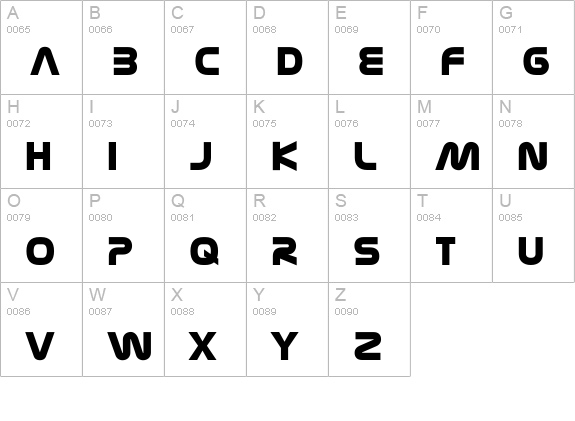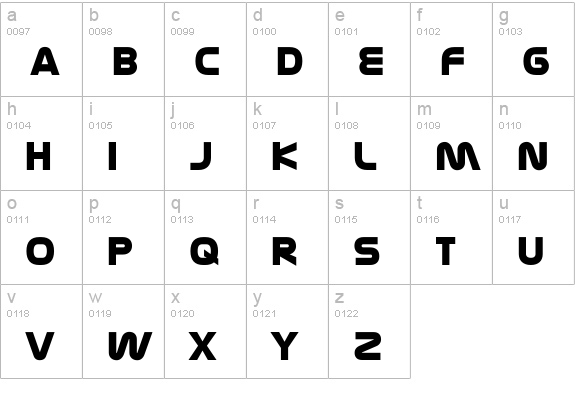
Nasalization Heavy is a heavy, high-impact variant in the Nasalization typeface family \xE2\x80\x94 well suited to high-impact headlines, posters, and display advertising.
Nasalization Heavy is a striking and bold display font that commands attention with its unique futuristic design. This typeface features strong, geometric shapes and sharp lines that give it a modern and edgy look. Perfect for headlines, logos, and branding projects, Nasalization Heavy exudes power and confidence. What makes Nasalization Heavy even more appealing is that it is available for free download at FontsMarket.com. This means that you can easily access this eye-catching font for your design projects without any cost. Add a touch of sophistication and style to your creations with Nasalization Heavy today!